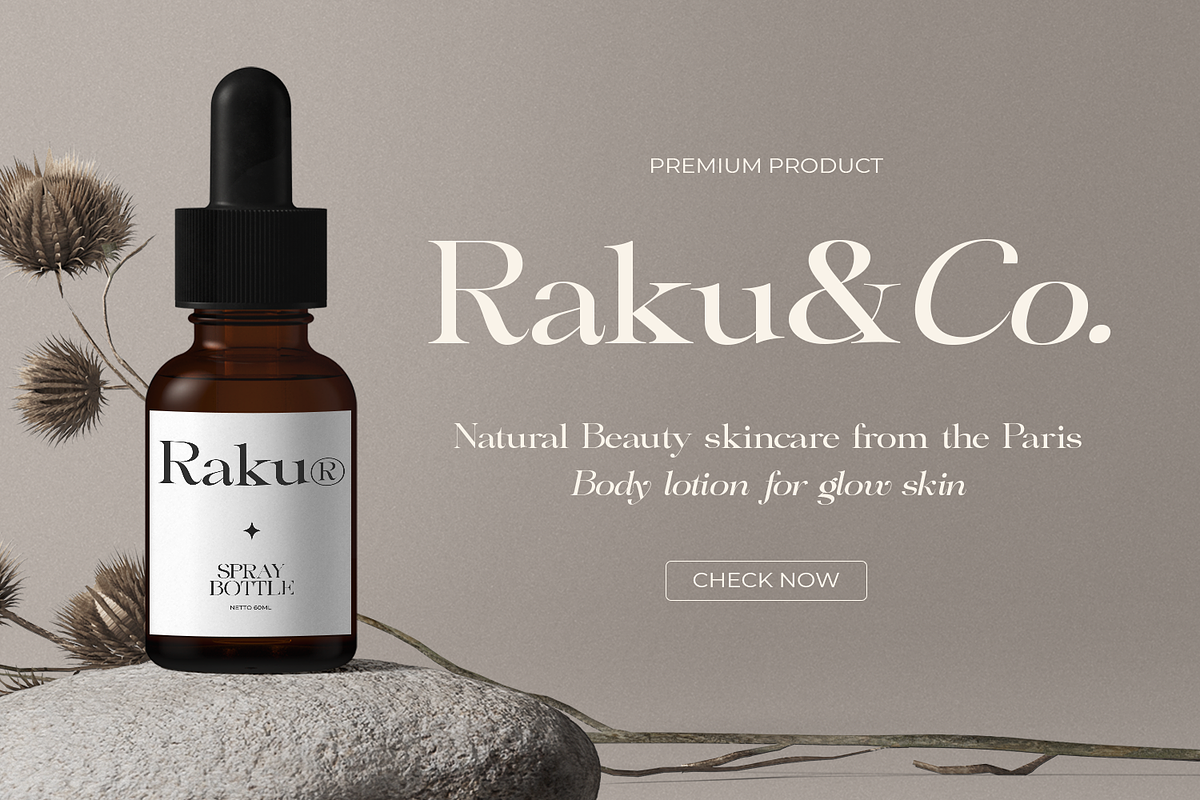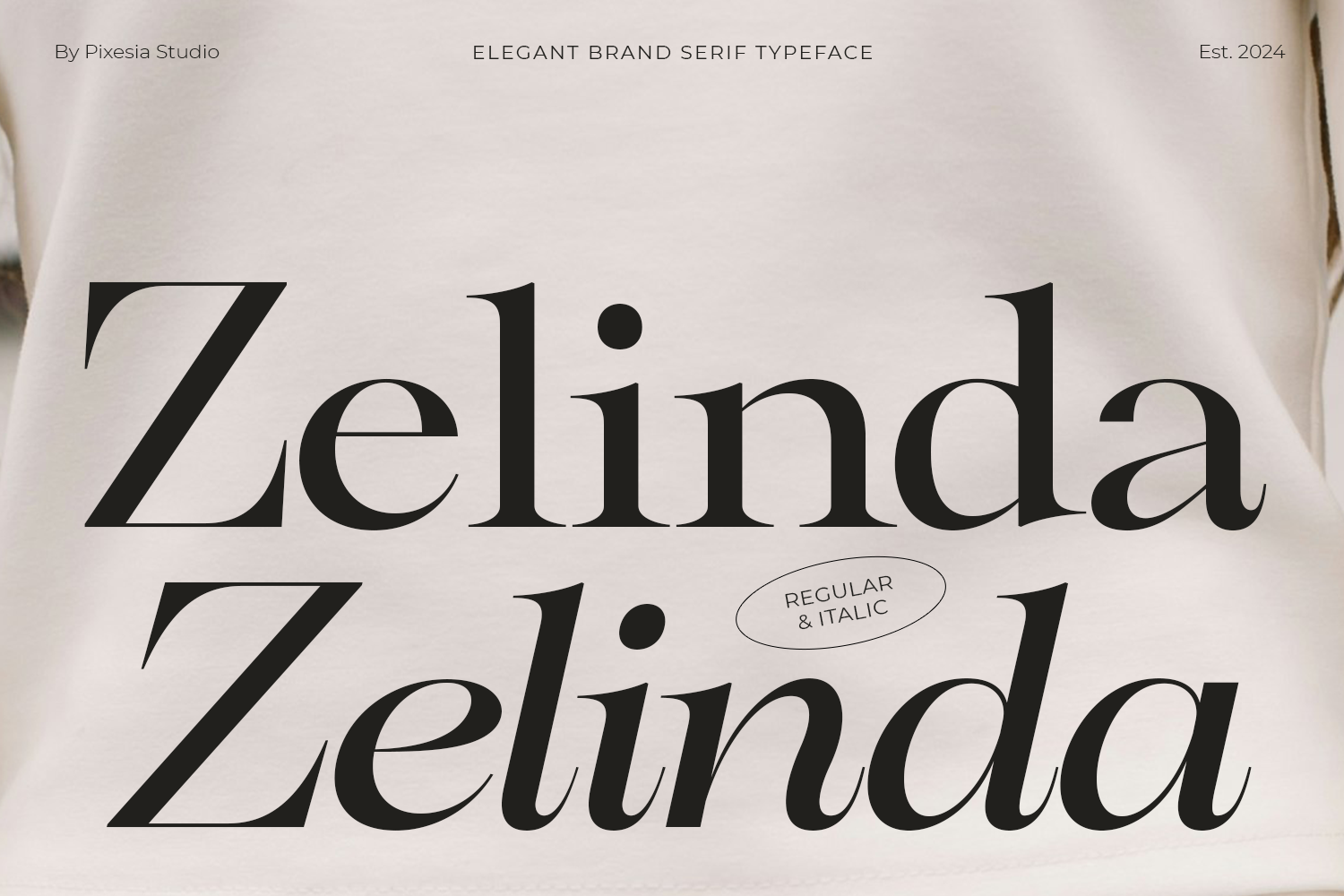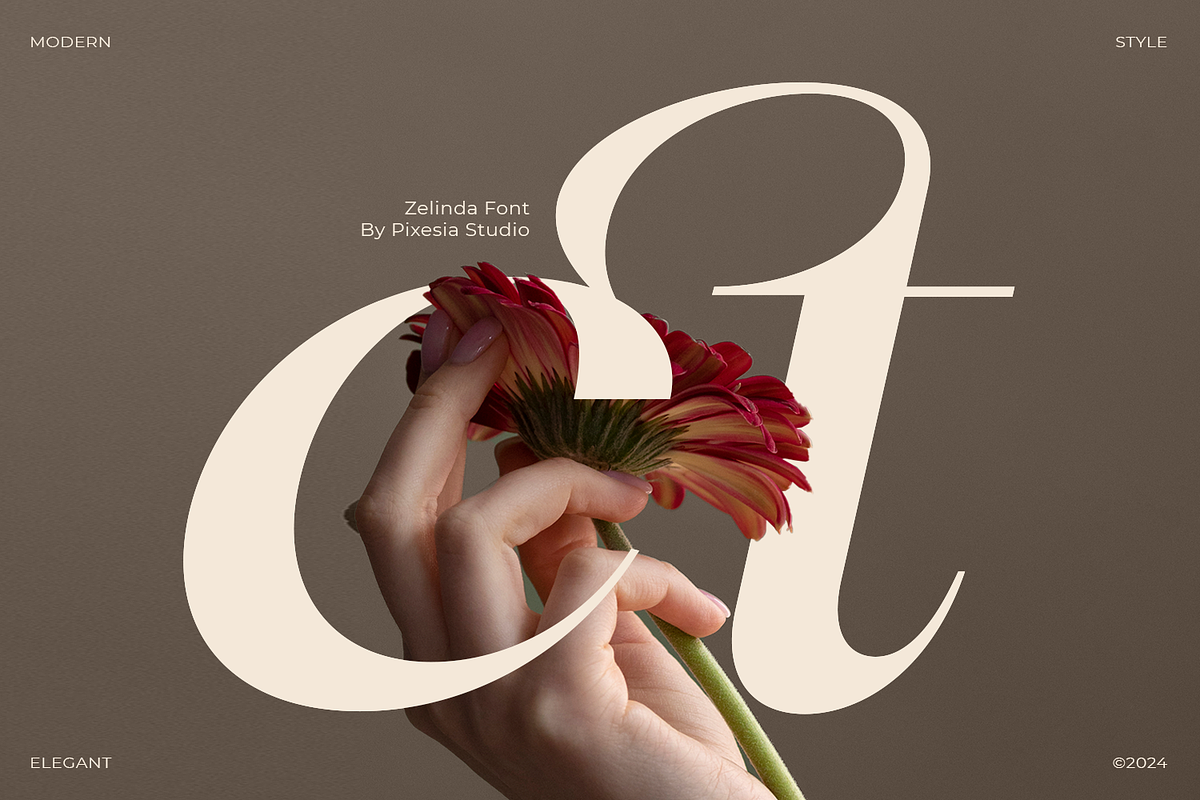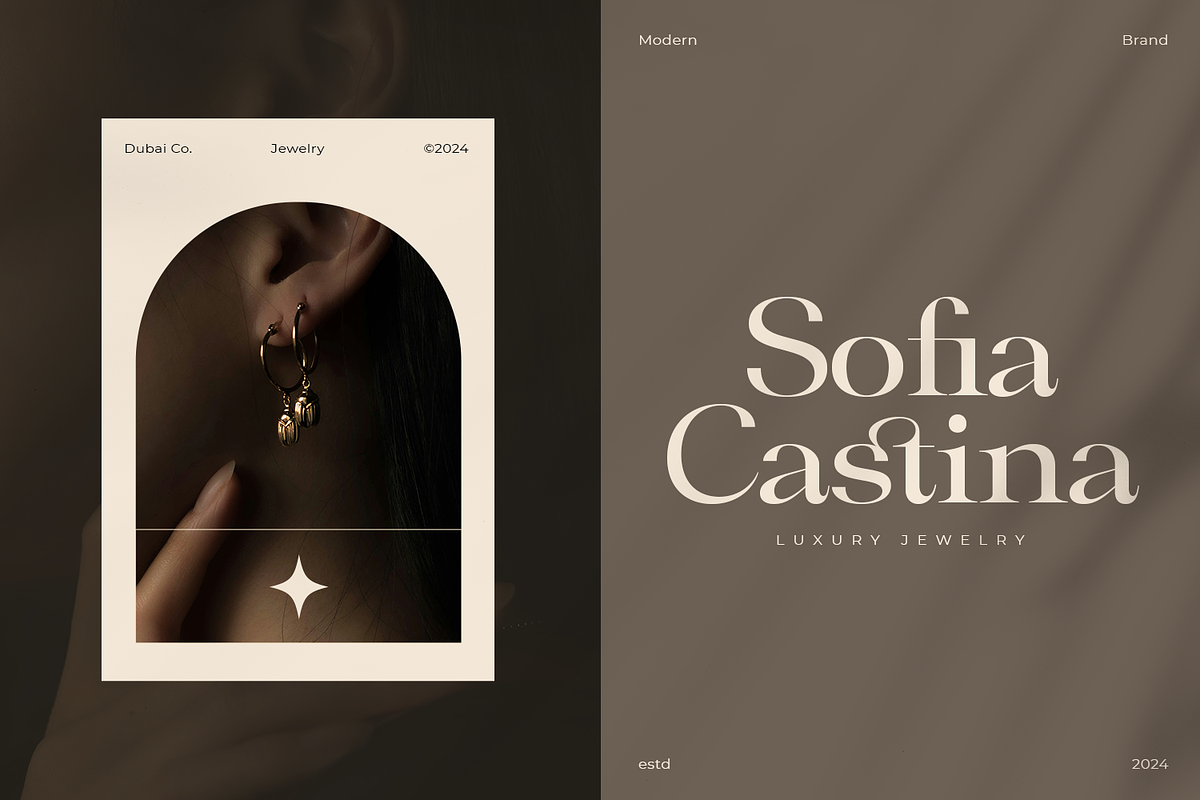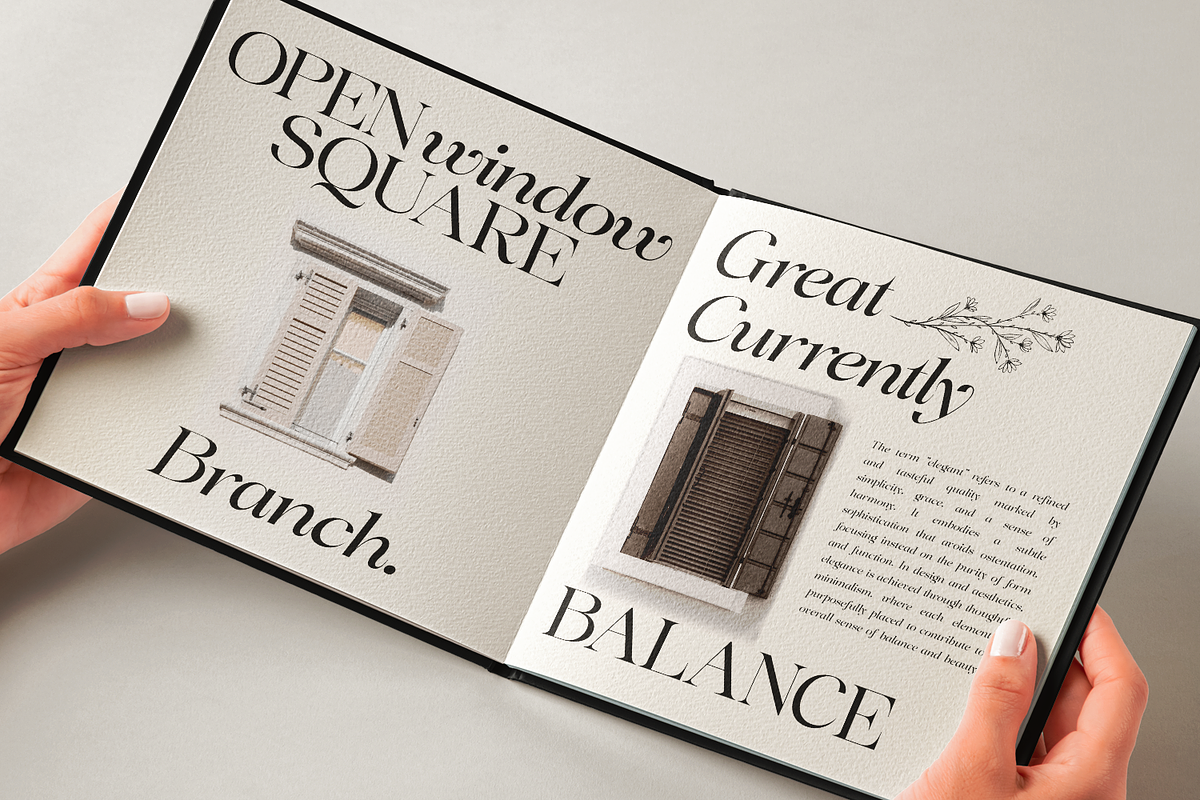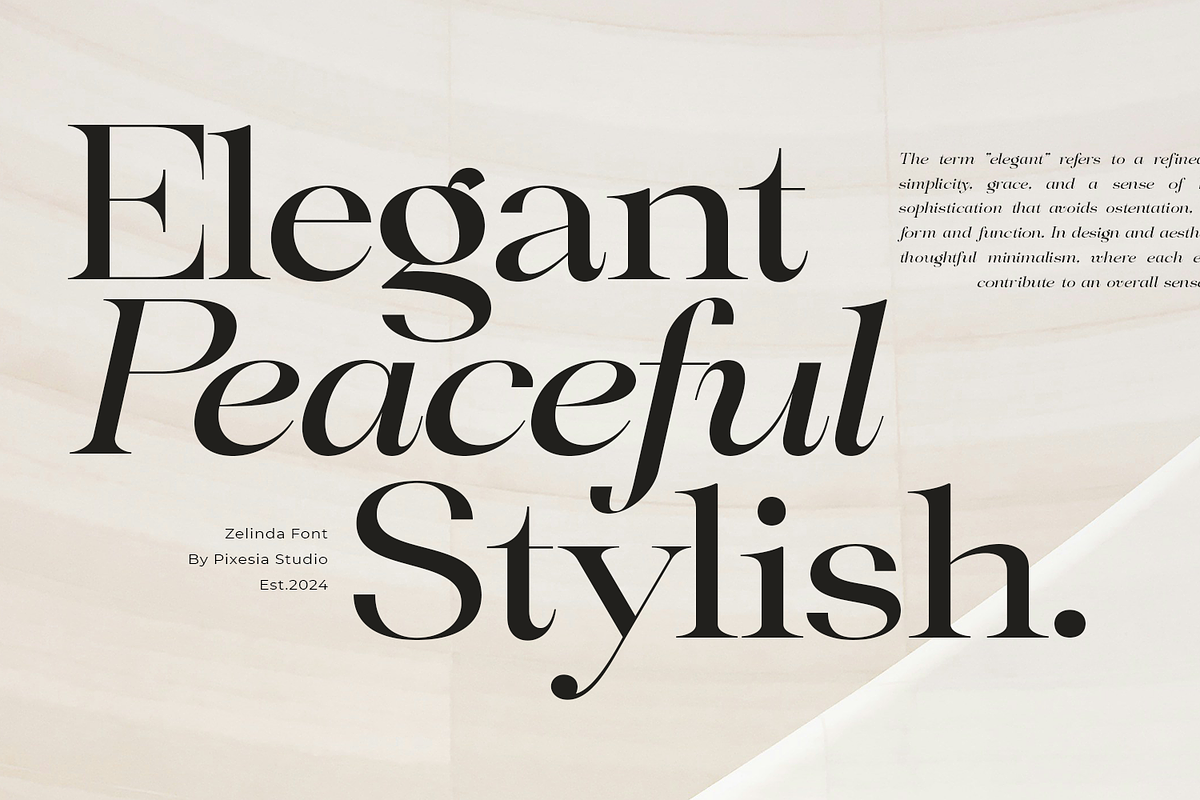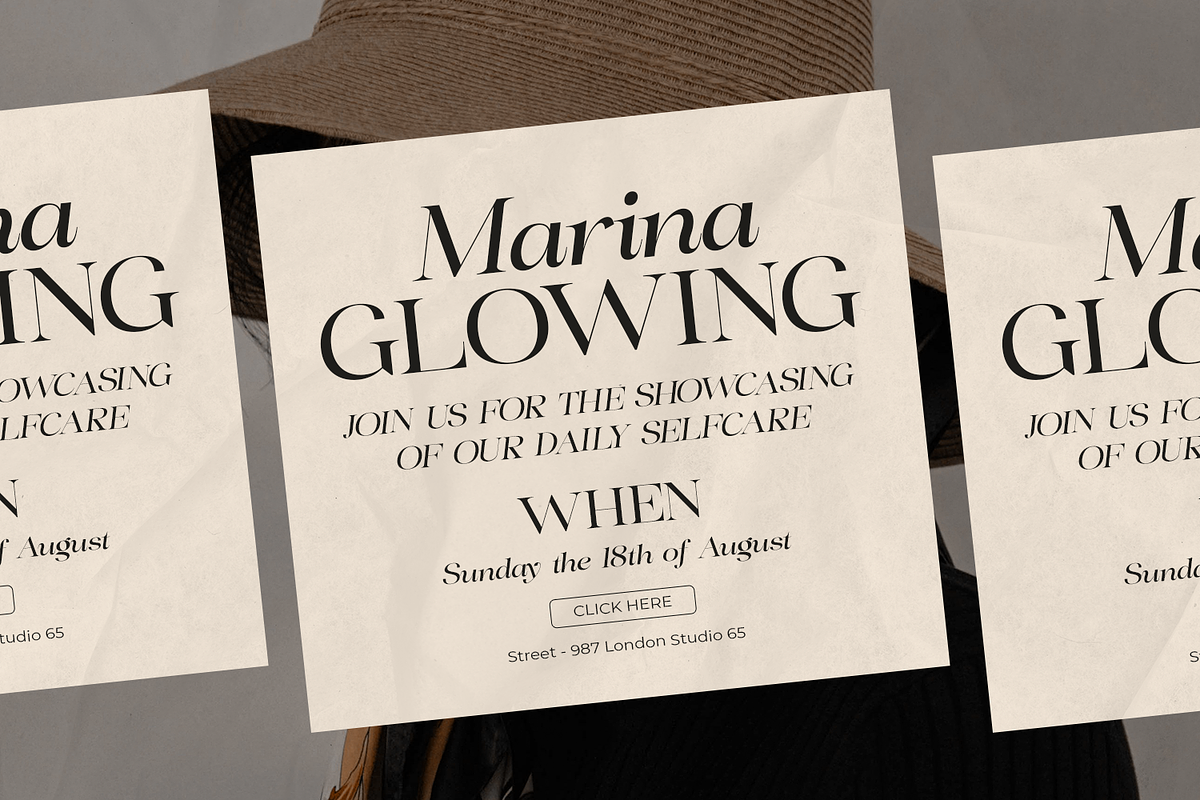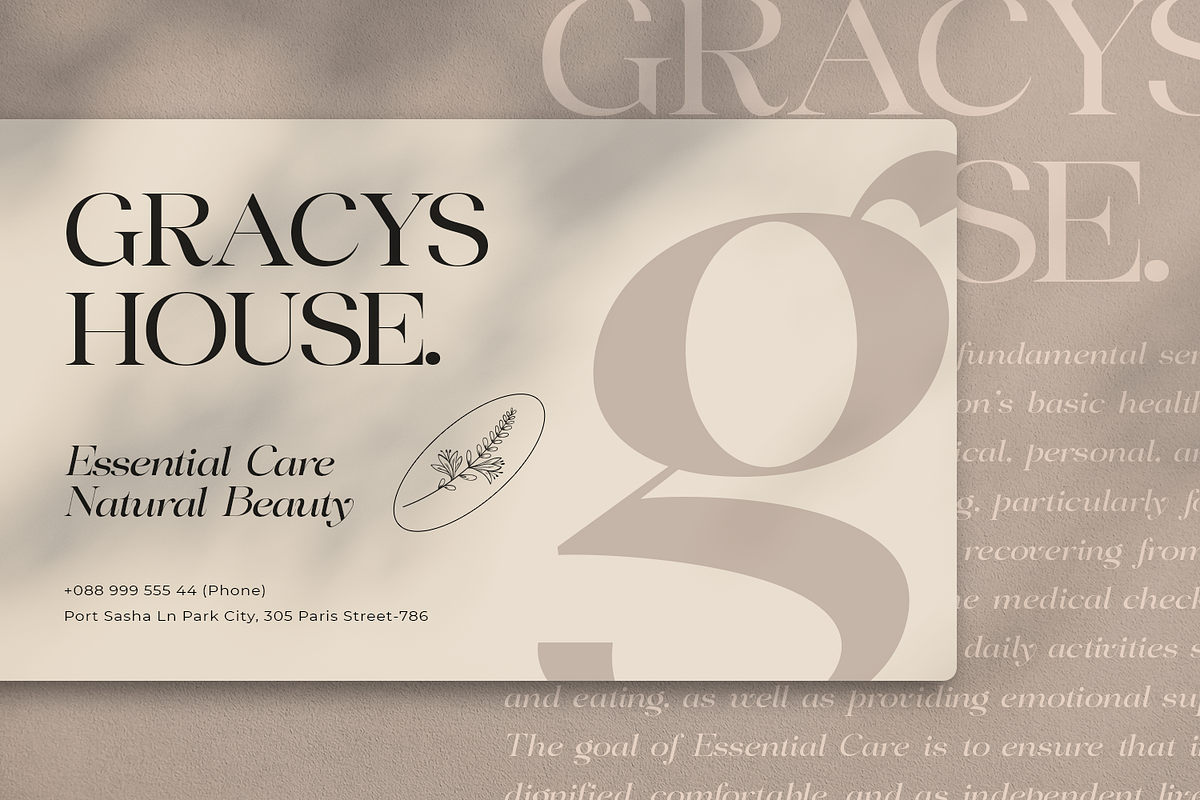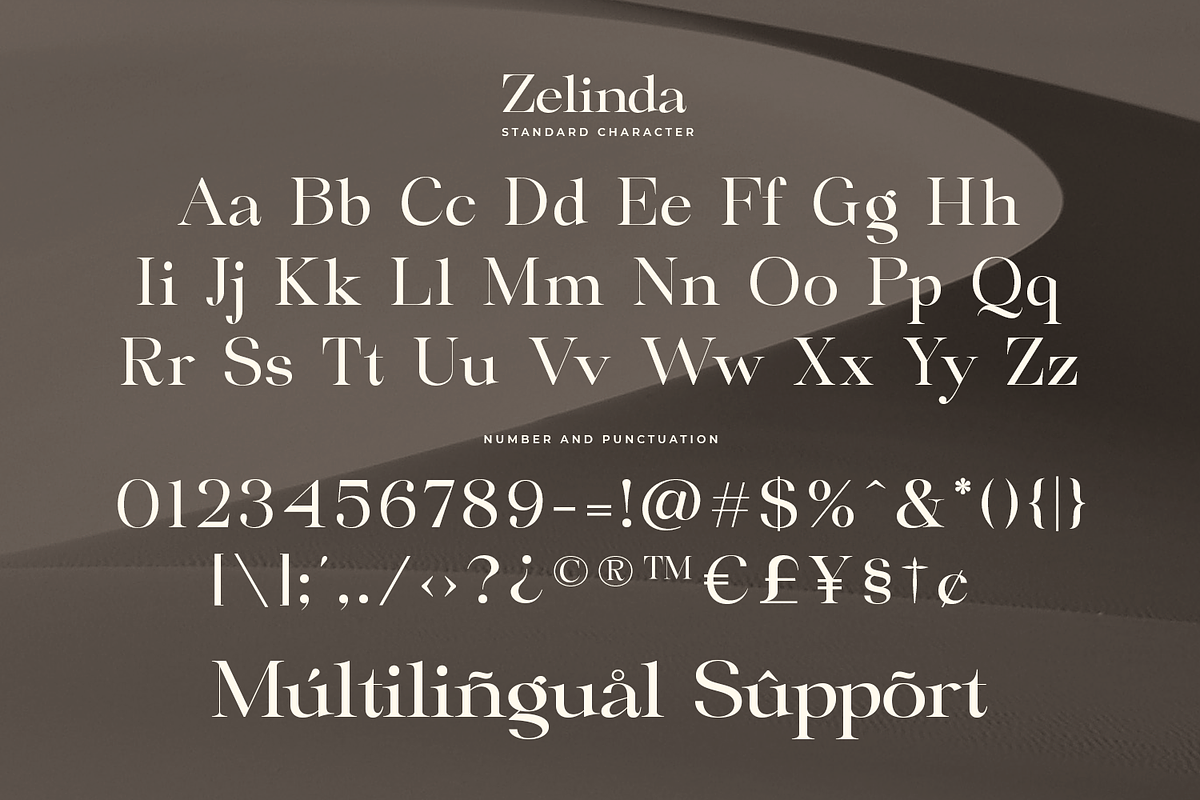
Zelinda - Modern Elegant Serif Font
Introducing Zelinda - Modern Elegant Serif Font
Zelinda is a modern serif typeface that embodies sophistication and grace. With its meticulously designed letterforms and refined proportions, it imparts a sense of elegance to any project, making it a preferred option for designers seeking a touch of class.
Megian is perfectly suited for branding, logotypes, wedding invitations, romantic quotes, labels, social media posts, advertisements, product packaging, product designs, label, photography, watermark, invitation, stationery and any projects seeking premium quality and luxury and aesthetic feel.
- Multilingual Support including Afrikaans, Albanian, Basque, Catalan, Danish, Dutch, English, Estonian, Faroese, Filipino, Finnish, French, Galician, German, Icelandic, Indonesian, Irish, Italian, Malay, Norwegian Bokmål, Portuguese, Spanish, Swahili, Swedish, Zulu